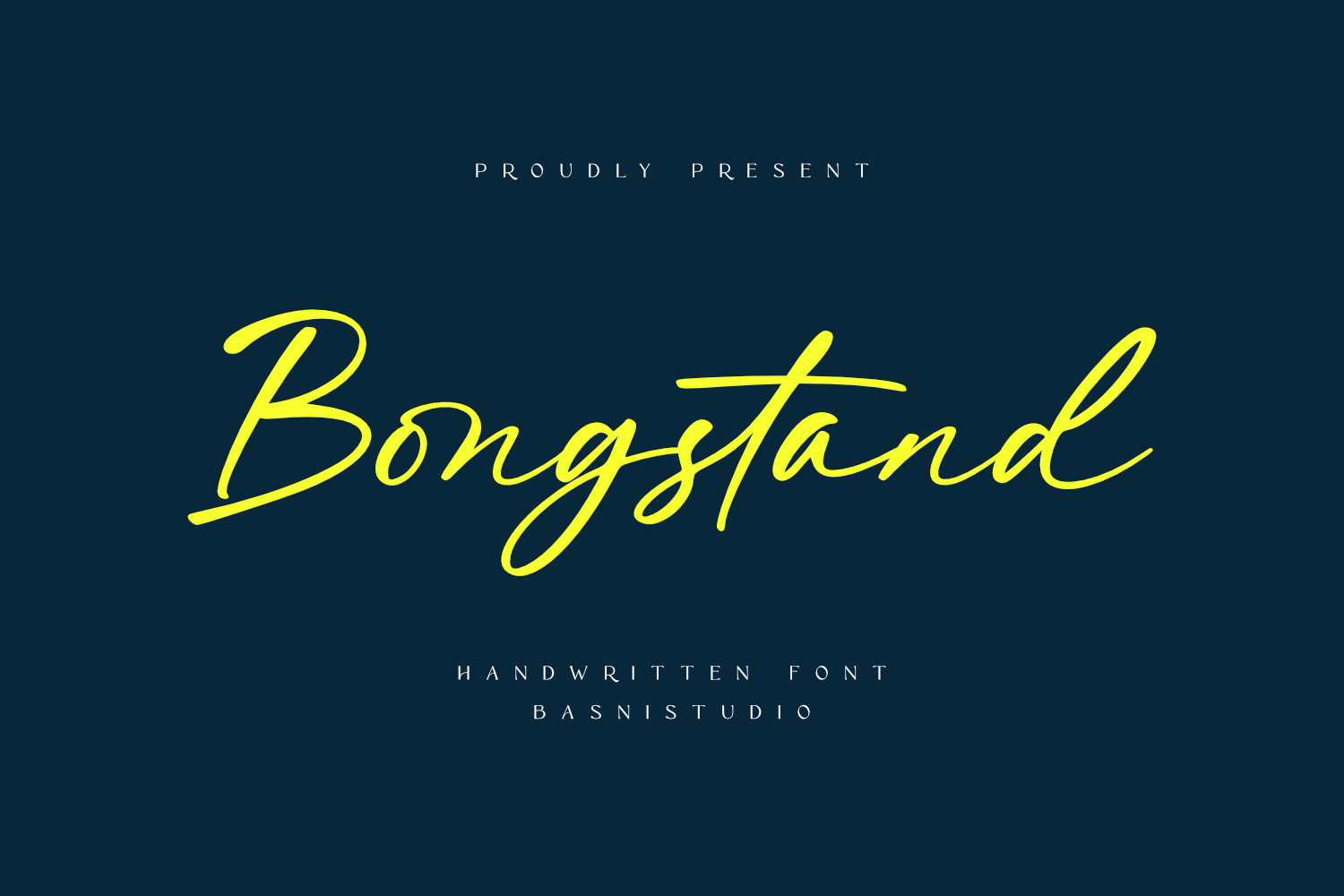
Bongstand Elegant Handwritten Font
Bongstand– Elegant Handwritten Font
Handwritting Font Created with real pen strokes for a natural look and casual touch to everything from branding and social media to invitations and packaging.
Natural & Casual – Perfect for tagline, quotes, greeting cards, and more
Authentic Handwritten Feel – Created with real pen strokes for a natural look
Whether you’re building a powerful brand identity or crafting a standout design,
Bongstand a Elegant Handwritting Font Created with real pen strokes for a natural look gives you the creative edge you need.
• Uppercase & lowercase letters
• Swashes
• ligatures
• Numbers & punctuation